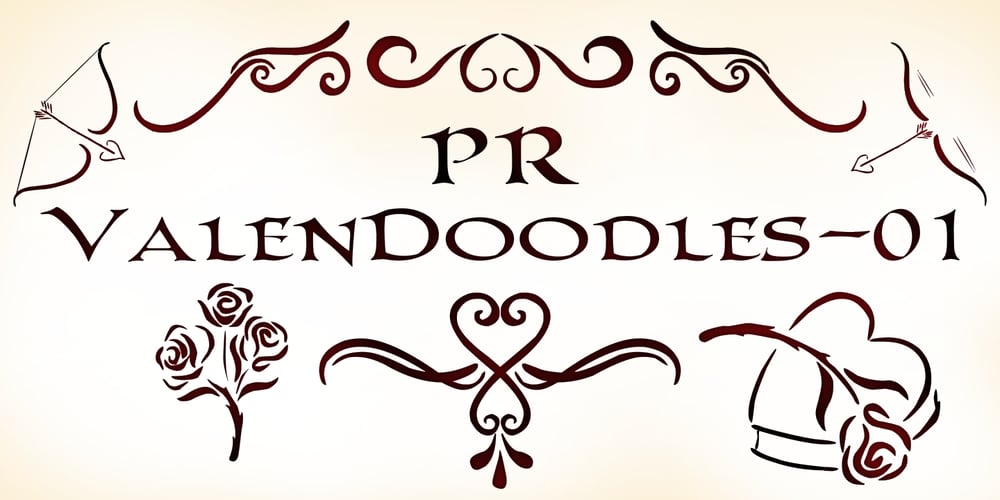
PR Valendoodle 01 Font Family was designed by Peter Rempel and published by PR Fonts. PR Valendoodle 01 contains 1 styles and family package options. This is a romantic set of ornaments inspired by Valentine’s Day. It includes calligraphic flourishes which include heart shapes, and many that can be combined to form heart shapes, as well as images of hearts, roses, and cupid’s arrows.